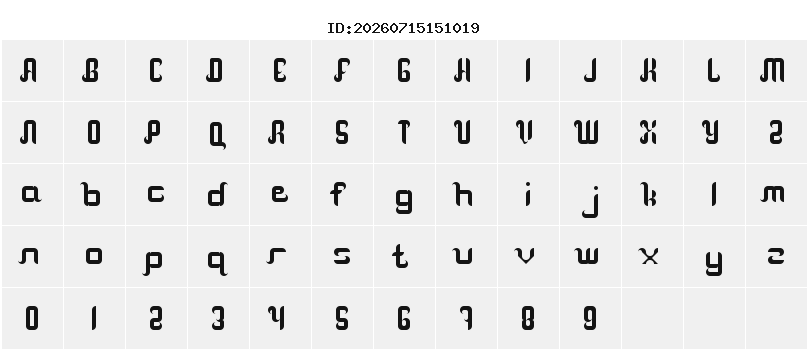
• Font Name: another calm sickle
• Font ID: FontStruct another calm sickle
• Full Font Name: another calm sickle Regular
• PostScript Name: another-calm-sickle
• Designer: paulineym
• Description: “another calm sickle” was built with FontStruct
About another calm sickle.ttf
another calm sickle.ttf is a modern, elegant sans-serif font designed for ultimate readability and visual harmony. Perfect for branding, headlines, web design, and print materials.